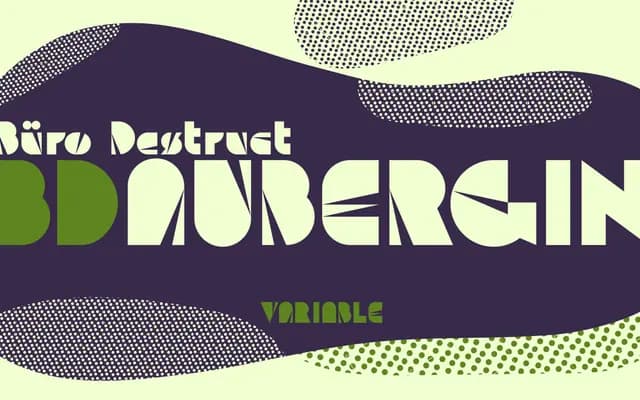
BD Aubergin
A Bauhaus-inflected display face with a variable axis that morphs letterforms from solid to sliced, suited to titling and poster work.
Released in 2020 by Type Different, BD Aubergin draws on geometric, Bauhaus-era construction while adding a distinctive 'slice' motif to its letterforms. The variable version provides an axis running from a filled, flat state to the sliced treatment, giving designers control over how expressive the type reads. Language support spans broad Western and Central European Latin, covering 26 languages.
A geometric display typeface with Bauhaus-influenced construction and a distinctive 'sliced' decorative treatment, positioning it firmly in the display category rather than a functional geometric sans.